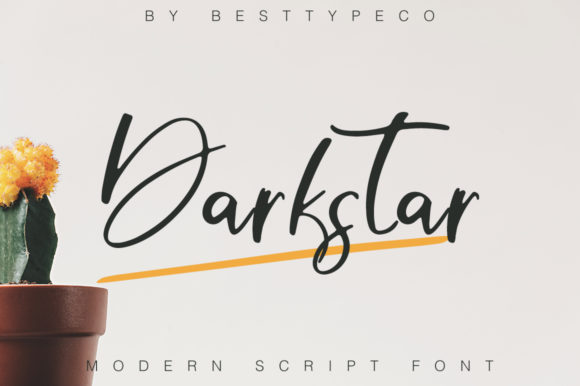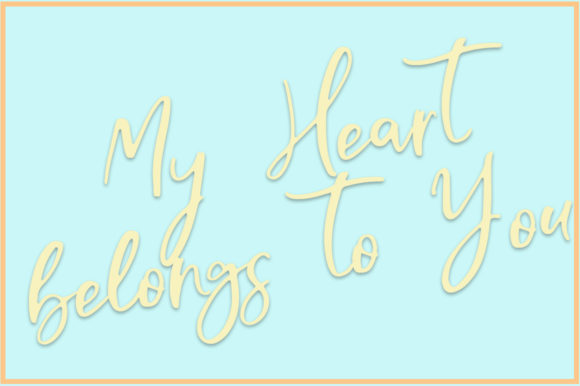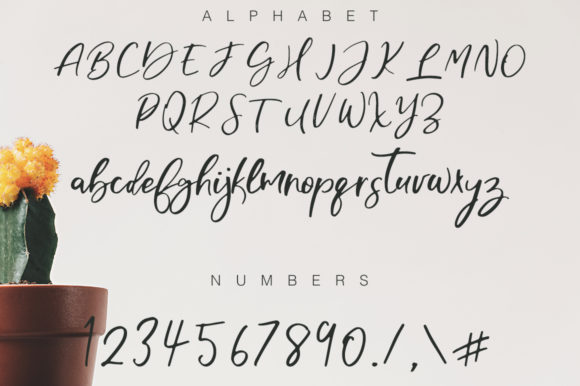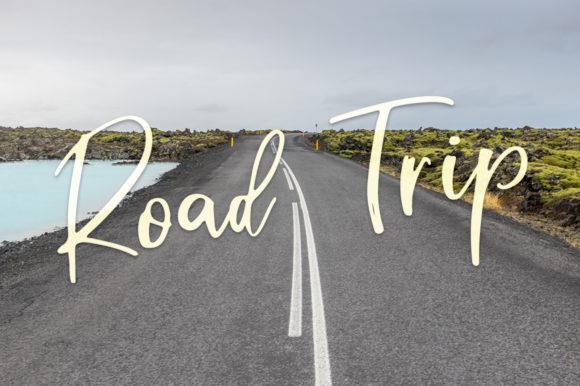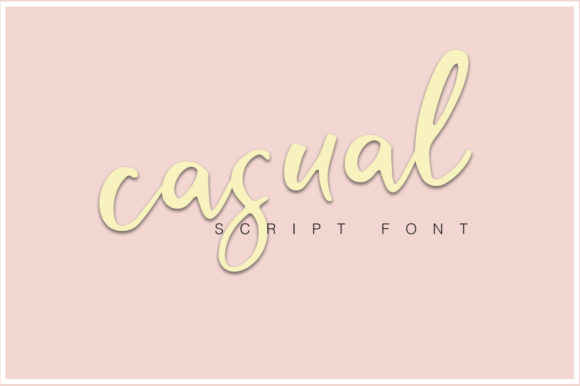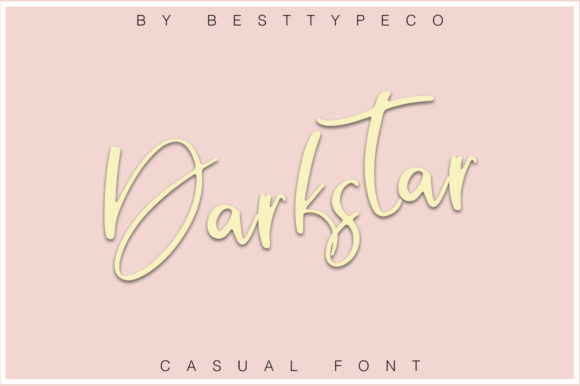
HomeScript FontsDarkstar Font Script Fonts Darkstar Font FacebookTwitterPinterestWhatsApp 1 of 6 Darkstar Font Poster 2... Darkstar Font Poster 3... Darkstar Font Poster 4... Darkstar Font Poster 5... Darkstar Font Poster 6... About Darkstar Font Darkstar is a fun handwritten font. Use this gorgeous and unique typeface to bring any DIY project to life! DOWNLOAD NOW People also explored Beside Font Anggitha Font Fistara Font Jingea Font Hardtown Font Baskara Font Chocolate Hazelnut Font Clockwork Lemon Font Holiday Font 131 0 TagsDarkstar Font Previous articleMirandany FontNext articleKalmaros Font LEAVE A REPLY Cancel reply Comment: Please enter your comment! Name:* Please enter your name here Email:* You have entered an incorrect email address! Please enter your email address here Website: Save my name, email, and website in this browser for the next time I comment. Personal Use Free Zero Hour Personal Use Free Read more about this font Tomatoes Personal Use Free Read more about this font Denisha Personal Use Free Read more about this font Playground Clip Art Personal Use Free Read more about this font BLOG Free Fonts Risk: Why Free Fonts Can Be Dangerous for Designers Free Fonts Risk: Why Free Fonts Can Be Dangerous for Designers Using free fonts is a common practice in web and graphic design. However, the... Using Fonts in Digital Marketing: Tips to Strengthen Your Brand Identity Best Fonts for T-Shirt Design – Top 2025 Picks Free vs Paid Fonts: Why Investing in Premium Fonts Is Worth It